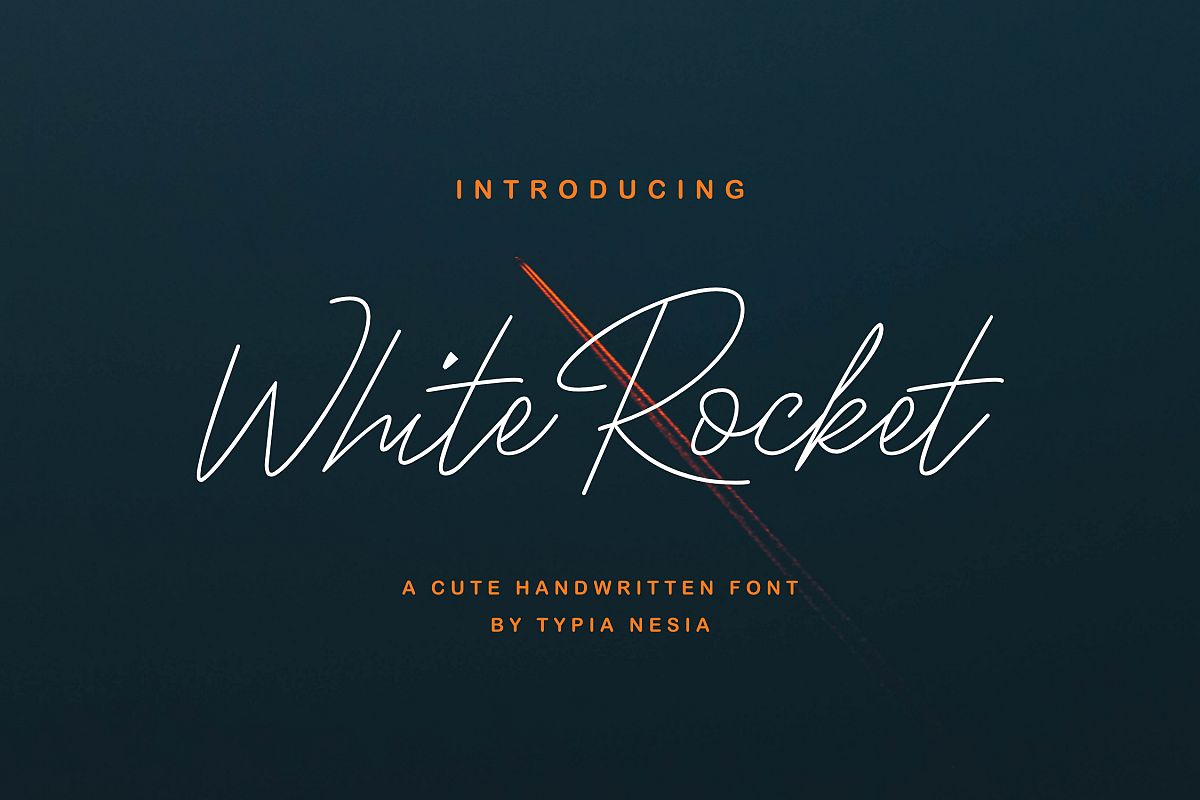
White Rocket is a handwritten style font.
The perfect flow and easy handwritten style works perfectly on invitations, blog headers, branding, art quote, book / cover Title, and so much more!